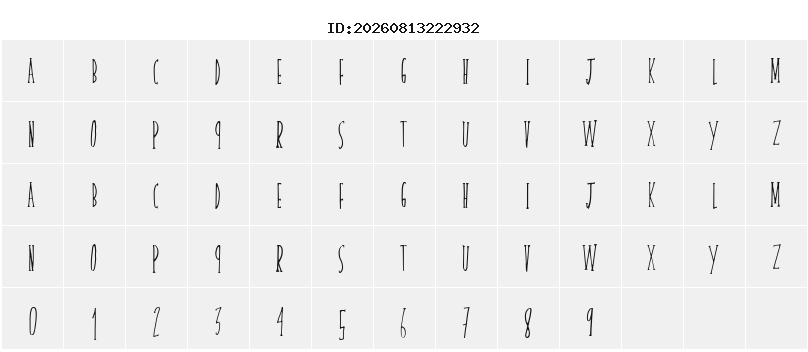
• Designer: Max Infeld
• Manufacturer: Xerographer Foundry
• Description: skinnyserif is fun
About skinnyserif.ttf
skinnyserif.ttf is a modern, elegant sans-serif font designed for ultimate readability and visual harmony. Perfect for branding, headlines, web design, and print materials.